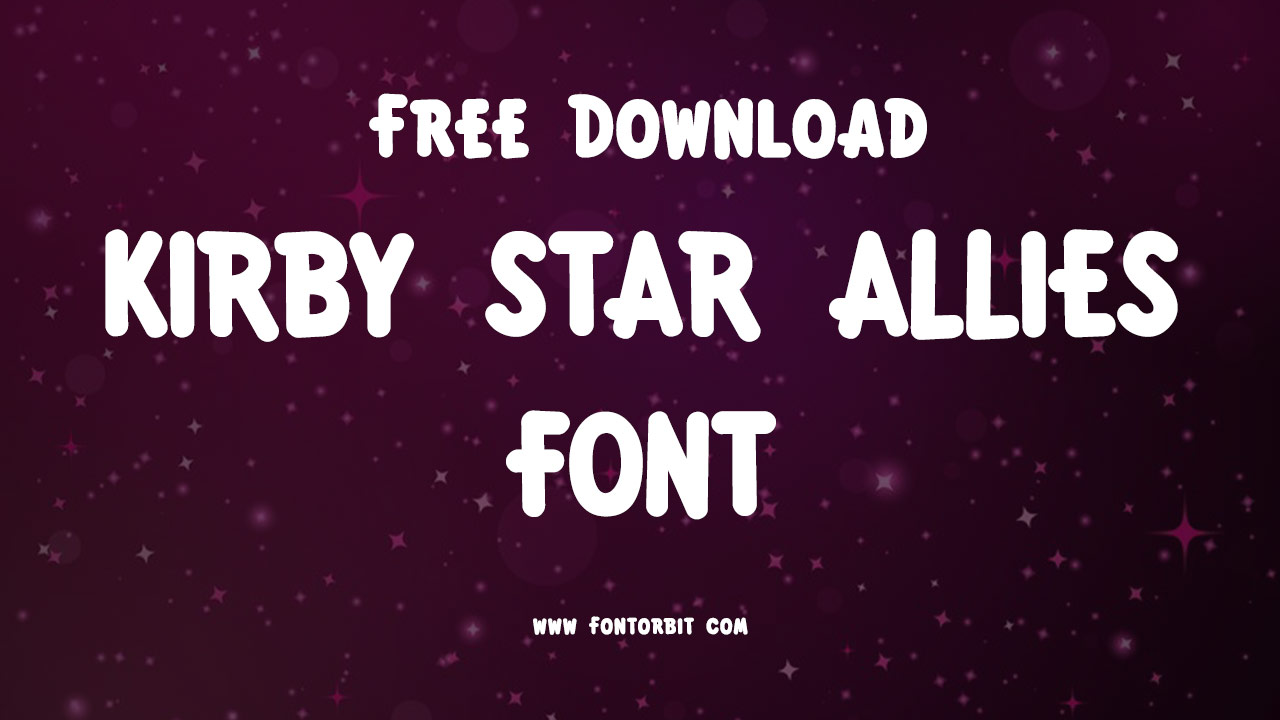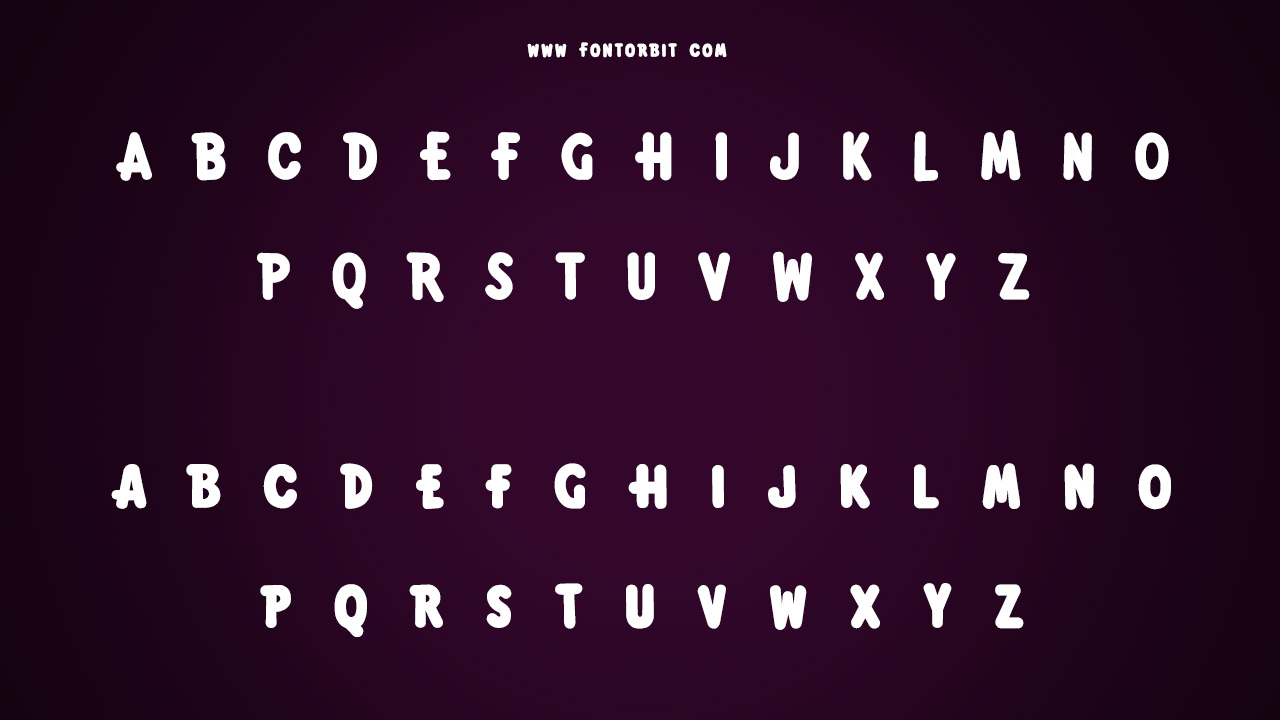
The Kirby Star Allies Font, used in the Nintendo Switch game Kirby Star Allies, features a custom-designed typeface that embodies a sleek and minimalist style. Created specifically for the game, this font captures the playful and modern aesthetic of the Kirby series.
Kirby Star Allies Font is not available as a commercial or downloadable font but is recognized for its distinctive minimalist design. This typeface’s simplicity and clarity are key to matching the game’s whimsical and friendly visual style.
The Kirby Star Allies Font is perfect for gaming and entertainment projects, embodying the playful and engaging essence of game graphics. It’s also ideal for modern design projects needing a clean, whimsical touch and is frequently recreated by fans for personal use.
The Kirby Star Allies Font showcases a unique, game-specific design that is both sleek and minimalist. Here it’s available for free download, you can also explore similar styles through fan recreations and minimalist display fonts for comparable visual appeal.
1.What Is The Kirby Star Allies Font?
The Kirby Star Allies Font is a custom typeface from the Nintendo Switch game Kirby Star Allies. It features a sleek, minimalist style that complements the game’s aesthetic.
2.How Can I Use A Font Similar To Kirby Star Allies?
Look for minimalist display fonts or fan recreations that capture the same clean, modern style.
3.What Are The Key Features Of The Kirby Star Allies Font?
The font is characterized by its sleek, clean lines and minimalist design, aligning with the playful and modern look of the game.
4.How Can I Use The Kirby Star Allies Font In Design?
Use it in design projects requiring a modern and clean aesthetic, especially where you need a whimsical or playful touch.